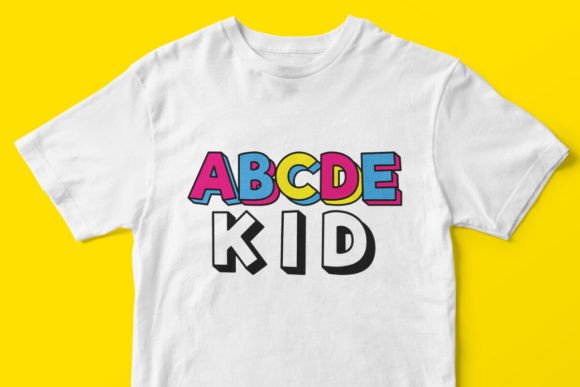
Pop Kid: A Playful Typeface for Standout Designs
When you first encounter Pop Kid, it's not a font that whispers—it shouts with a friendly, energetic vibe. This isn't your typical serif font or a standard sans serif font; it's a distinct, lettered display font built for one primary purpose: visual impact. Think of it as the typographic equivalent of a bright smile and a confident handshake. Its rounded, slightly irregular letterforms have a handcrafted quality that feels both modern and nostalgic, a combination that's surprisingly effective in cutting through visual noise. The personality is unmistakably cool, fun, and approachable, making it a valuable creative font for projects that need to connect on a human level.
Where Pop Kid Truly Shines
The real-world applications for a font like Pop Kid are where its value becomes clear. It’s a design asset that doesn't just sit in your font library; it actively solves creative problems. For entrepreneurs and small business owners, it’s a secret weapon for packaging design. Imagine a gourmet popcorn brand or a craft soda label—the font’s playful character instantly communicates fun and artisanal quality, helping to build a memorable brand identity. In the world of T-shirt design, it’s a natural fit, offering a trendy, youthful aesthetic that stands out in a crowded marketplace.
For publishers and authors, particularly in children's books or middle-grade fiction, Pop Kid can define a cover's entire tone. It sets an expectation of adventure and excitement before a single page is turned. The same principle applies to birthday cards, greeting cards, and invitations. Using Pop Kid for the headline transforms a generic template into something that feels custom and celebratory. Digital creators and bloggers will find it invaluable for social media graphics, YouTube thumbnails, or podcast artwork where grabbing attention in a split-second scroll is non-negotiable. Its high legibility at various sizes makes it a practical choice for these fast-paced environments.
Making It Work: Practical Guidance for Your Projects
Choosing the right font is a strategic decision, not just an aesthetic one. Pop Kid is a premium font, and its effectiveness depends on context. Start by evaluating your project's core message. If you're aiming for serious, corporate professionalism, this likely isn't your primary typeface. But if your goal is to convey creativity, approachability, and energy, it’s worth testing. Always preview it with your actual content—a font can look different with your brand name versus the alphabet.
Font pairing is where Pop Kid’s strengths can be amplified. Because it’s a strong display font, it pairs best with simple, neutral companions. A clean sans serif font like Helvetica, Arial, or a modern grotesque for body text creates a perfect balance, letting Pop Kid own the headlines without causing visual clutter. Avoid pairing it with another ornate script font or a highly decorative serif, as they will compete for attention and undermine readability. Review the included styles and weights; a good creative font family often offers variations that can add nuance to your designs.
Readability is paramount. While Pop Kid excels at large sizes for logos, titles, and headings, it’s not designed for long-form body copy. Its charm lies in its display strength. For commercial use, always confirm the licensing. A legitimate commercial font will come with clear terms allowing use across digital, print, and merchandise projects, which is essential for entrepreneurs and brands planning to scale. This isn't just about legal compliance; it's about investing in a design asset that supports your professional growth without future headaches.
Ultimately, integrating a typeface like Pop Kid into your toolkit is about having the right instrument for the right job. It’s a specialized tool that, when used thoughtfully, can inject personality, boost recognition, and create that crucial emotional connection with your audience. In a landscape saturated with generic visuals, a distinctive, well-chosen font is a powerful differentiator. It helps tell your story before you’ve even said a word, making it a cornerstone of effective visual communication for creators, builders, and storytellers alike.